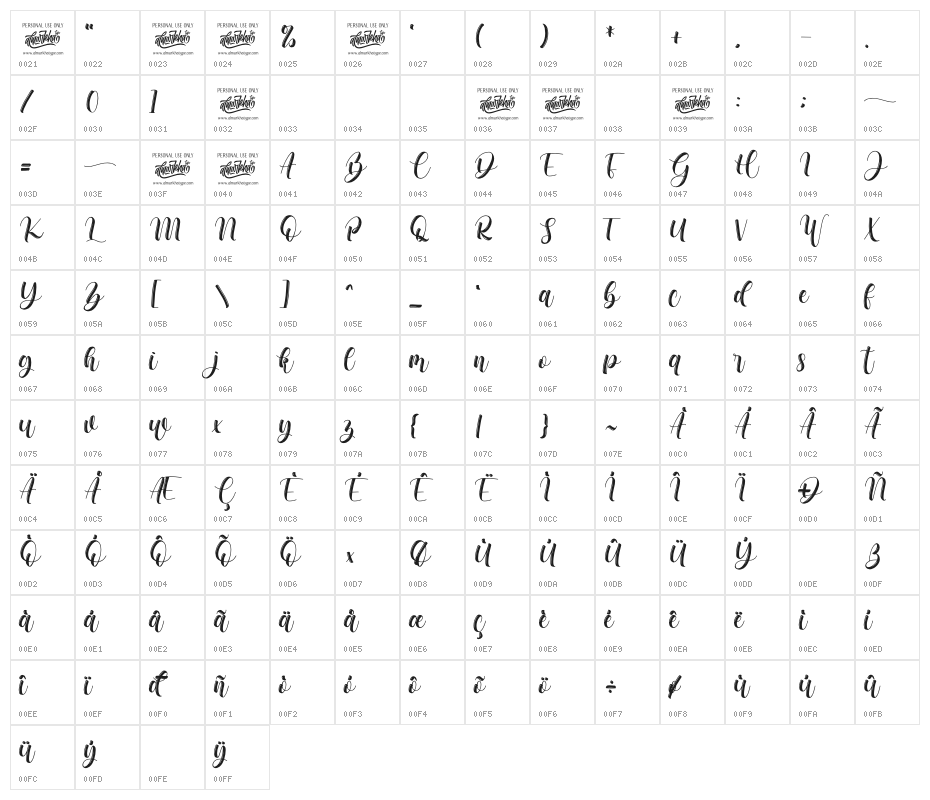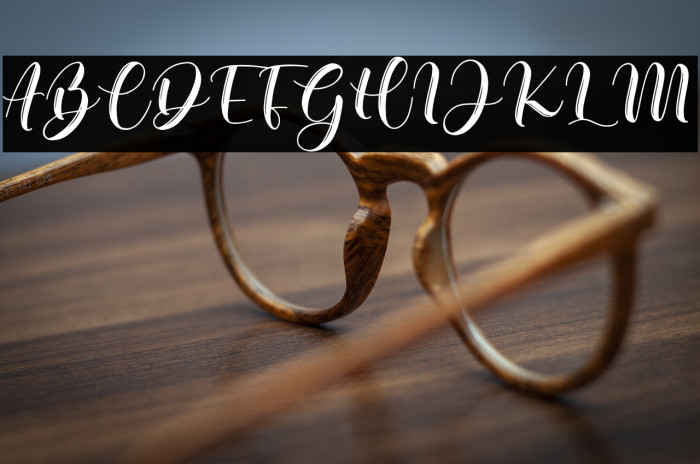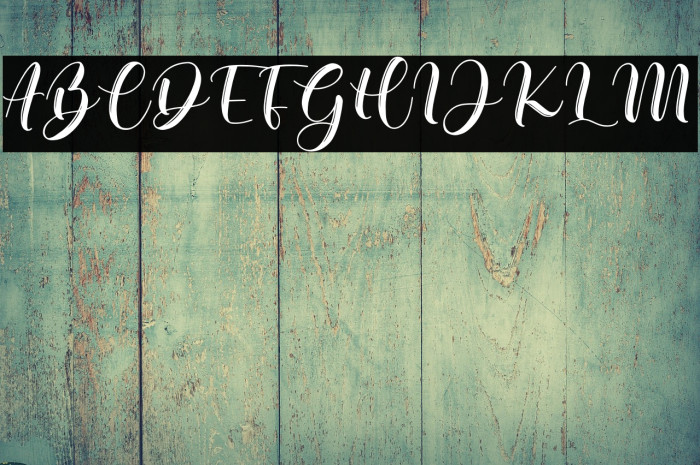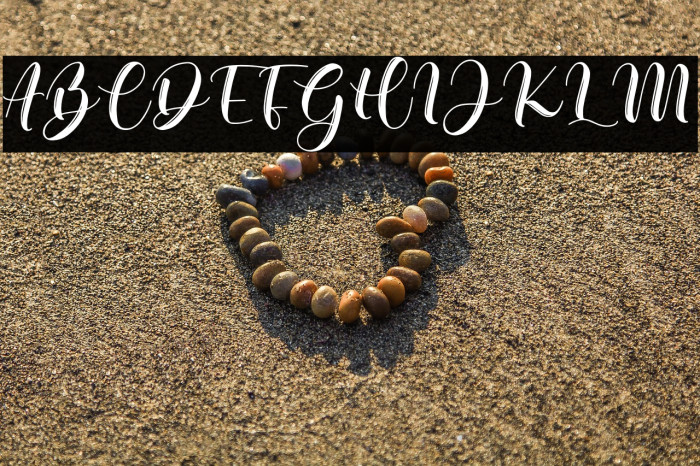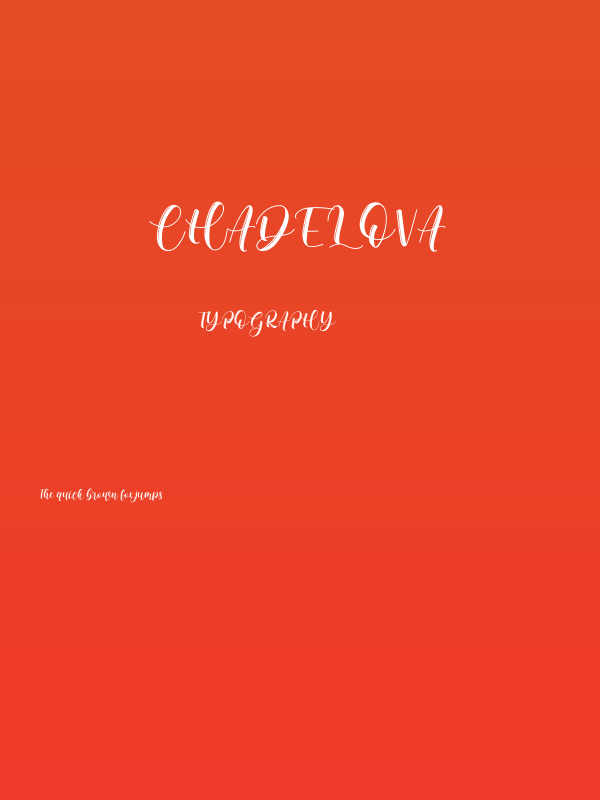
chadelova Font
chadelova Description
This font features a dynamic and flowing script style, characterized by its elegant, cursive letterforms. The strokes are bold and sweeping, with a high contrast between thick and thin lines, giving it a dramatic and expressive appearance. The uppercase letters are particularly ornate, with flourishes that add a touch of sophistication. The lowercase letters maintain a consistent style, with smooth connections that enhance readability. The numbers and special characters are designed to match the overall aesthetic, providing a cohesive look across all elements.